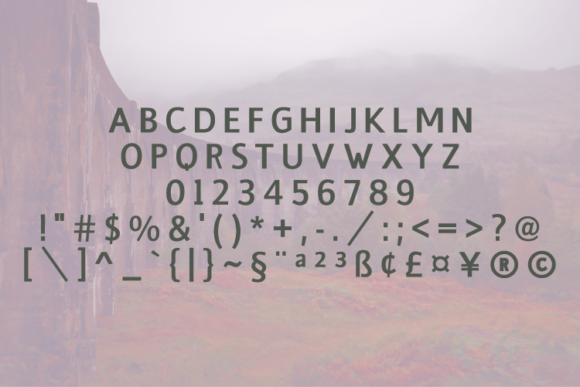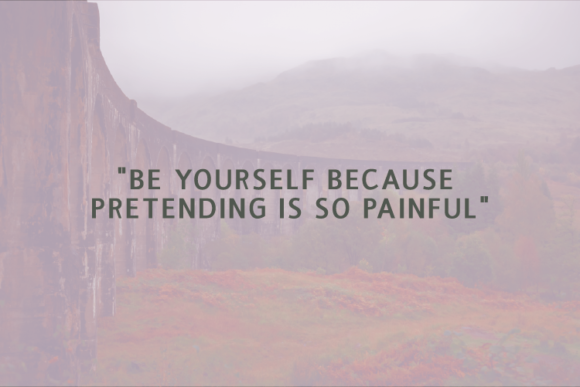
Bellance Font: The Ultimate Sans Serif for Creative Projects
Are you tired of using the same old fonts for your creative projects? Look no further than Bellance Font, a minimal and neat sans serif font that’s perfect for designers and crafters alike. With its clean lines and simple design, Bellance is an incredibly versatile font that can easily be matched to a wide range of projects, from modern branding to digital marketing materials.
What Makes Bellance Font So Special?
Bellance Font is a sans serif font, which means it doesn’t have the small lines or flourishes that are characteristic of serif fonts. This makes it a great choice for projects where you want a clean and modern look. The font is also highly legible, even at small sizes, making it perfect for use in body text or captions.
One of the standout features of Bellance Font is its minimalism. The font has a very simple design, with clean lines and a consistent width. This makes it easy to read and understand, even for long blocks of text. The font is also highly versatile, and can be used in a wide range of projects, from digital marketing materials to print ads and even packaging.
Why Designers and Crafters Love Bellance Font
Another reason designers and crafters love Bellance Font is its flexibility. The font comes in a range of weights and styles, making it easy to use in a variety of different contexts. Whether you’re designing a logo, creating a brochure, or crafting a social media post, Bellance Font is a great choice.
How to Use Bellance Font in Your Creative Projects
So how can you use Bellance Font in your creative projects? Here are a few ideas to get you started:
- Branding: Use Bellance Font as a logo font or in your brand guidelines to create a consistent look and feel across all of your marketing materials.
- Digital Marketing: Use Bellance Font in your social media posts, email marketing campaigns, and digital ads to create a modern and professional look.
- Print Design: Use Bellance Font in your brochures, flyers, and other print materials to create a clean and modern look.
- Crafting: Use Bellance Font to create custom signs, labels, and other craft projects.
Tips for Getting the Most Out of Bellance Font
Here are a few tips for getting the most out of Bellance Font:
- Experiment with different weights and styles: Bellance Font comes in a range of weights and styles, so don’t be afraid to experiment and find the one that works best for your project.
- Use it with other fonts: Bellance Font pairs well with a wide range of other fonts, so don’t be afraid to use it in combination with other typefaces.
- Pay attention to spacing: Make sure to pay attention to the spacing between letters and lines when using Bellance Font, as this can affect its overall look and feel.
In conclusion, Bellance Font is a versatile and modern sans serif font that’s perfect for designers and crafters alike. With its clean lines, simple design, and high legibility, Bellance is an excellent choice for a wide range of creative projects. Whether you’re designing a logo, creating a brochure, or crafting a social media post, Bellance Font is a great choice. So why not give it a try and see how it can help take your creative projects to the next level?